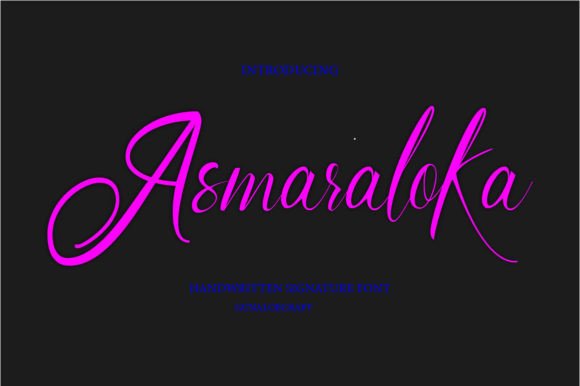
Introducing Asmaraloka Font: Elevate Your Designs with Elegance
Have you ever been in the middle of a design project, and suddenly, you’re struck by the daunting task of finding the perfect font? I recall a particularly frustrating experience while working on a wedding invitation project. My client wanted a font that exuded elegance and sophistication, but everything I tried seemed to fall flat. That’s when I stumbled upon the Asmaraloka font, and it completely transformed my design. In this article, I’ll share my journey with Asmaraloka, its features, and how you can make the most of this beautiful script font.
A Personal Encounter with Asmaraloka
As I began working with Asmaraloka, I was immediately captivated by its signature script style, which I can only describe as lettering chic. The exquisite accents and the full set of gorgeous uppercase and lowercase letters, numbers, and punctuation marks & ligatures made it an instant favorite. I was able to create stunning works of art with ease, thanks to its user-friendly features.
What I Love About Asmaraloka Font
- ✨ Exquisite script font with elegant accents
- ✅ Full set of uppercase and lowercase letters, numbers, and punctuation marks & ligatures
- 🎉 Large selection of glyphs and swashes for added creativity
- 🔍 Features alternate glyphs and ligatures for unique designs
Honest Review: The Not-Perfect-but-Almost Section
While Asmaraloka has won my heart, there are a few minor quirks to consider:
- 🤔 Some users might find the font overwhelming due to its extensive features.
- ⚠️ It may not be the best choice for very long texts or body content, as it’s primarily designed for display and decorative purposes.
The Story Behind Asmaraloka
Asmaraloka was designed with the intention of bringing a touch of elegance and sophistication to the world of typography. Its creator aimed to craft a font that would not only be beautiful but also highly versatile, suitable for everything from wedding invitations to logotypes. The name ‘Asmaraloka’ evokes a sense of mystique and wonder, reflecting the font’s ability to elevate any design.
| What makes Asmaraloka font unique? | Asmaraloka’s uniqueness lies in its exquisite script style, complete with elegant accents, a wide range of glyphs, and advanced typographic features like ligatures and alternate glyphs. |
| Is Asmaraloka suitable for body text? | While Asmaraloka is stunning for display purposes, it’s primarily designed for titles, headings, and short texts. For longer body texts, a more straightforward, readable font might be more suitable. |